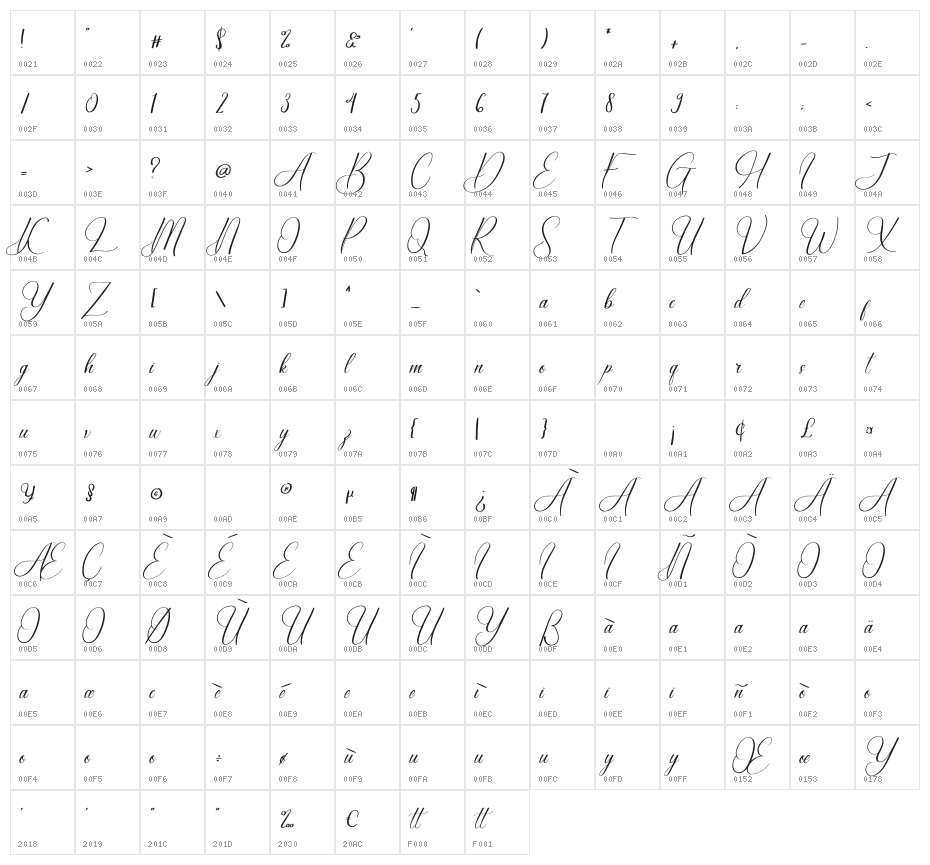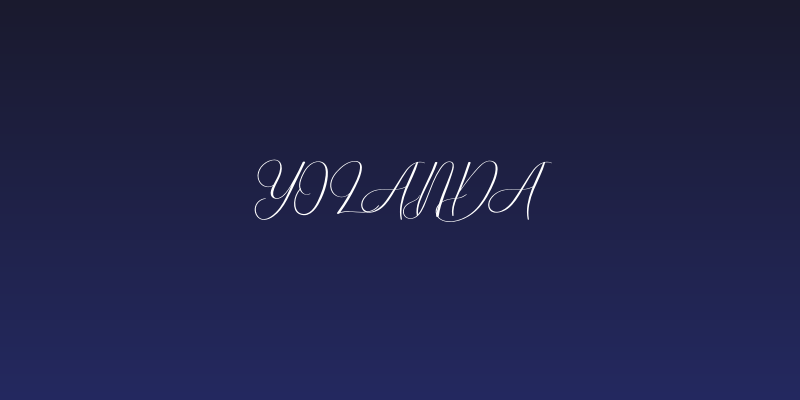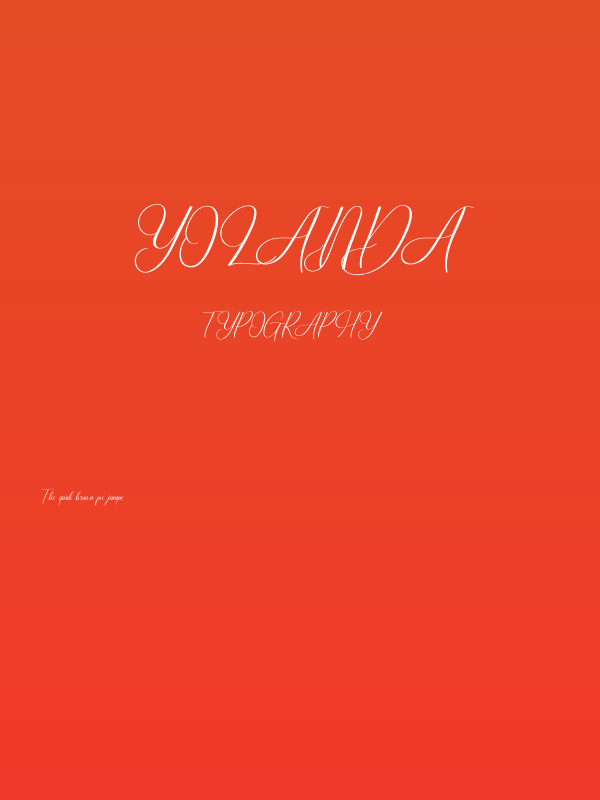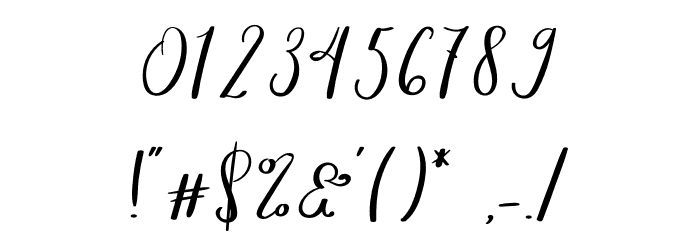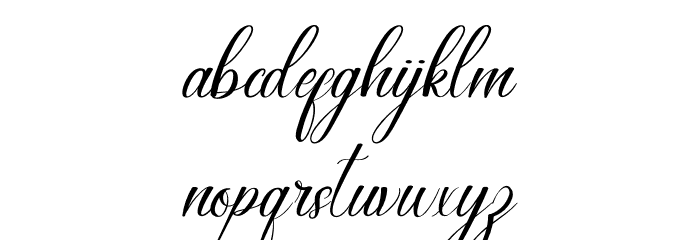
Yolanda Font
Yolanda Description
This elegant script font features flowing, interconnected letters that exude a sense of sophistication and grace. The uppercase letters are tall and slender, with sweeping curves and delicate loops, while the lowercase letters maintain a consistent fluidity that enhances readability. The numerals are stylish and align well with the overall script style, adding a touch of class to any numerical representation. Special characters are thoughtfully designed to complement the alphabet, ensuring a cohesive look across all text. This font is perfect for projects that require a touch of elegance and refinement.
| Proposed Projects | Ideal for wedding invitations, elegant branding, luxury product packaging, and formal event programs. |